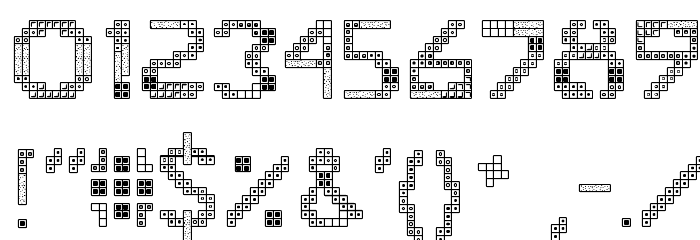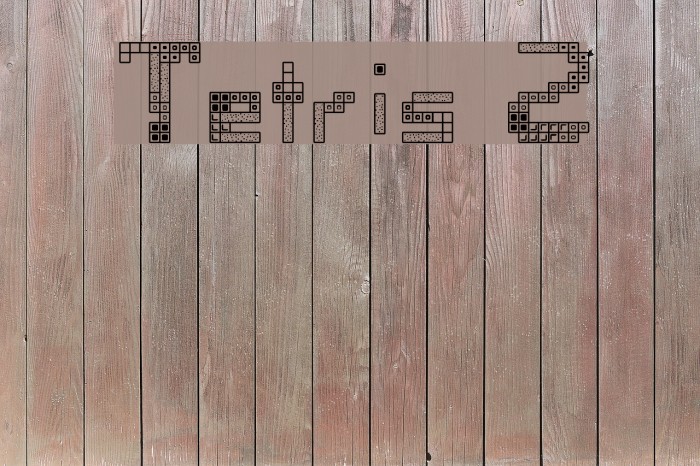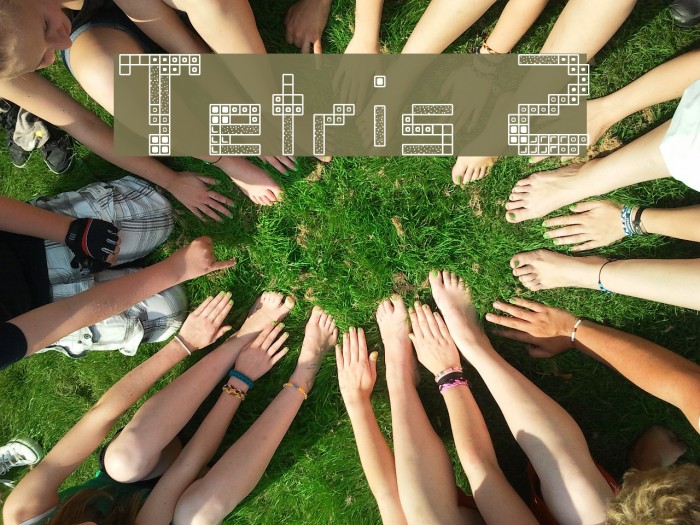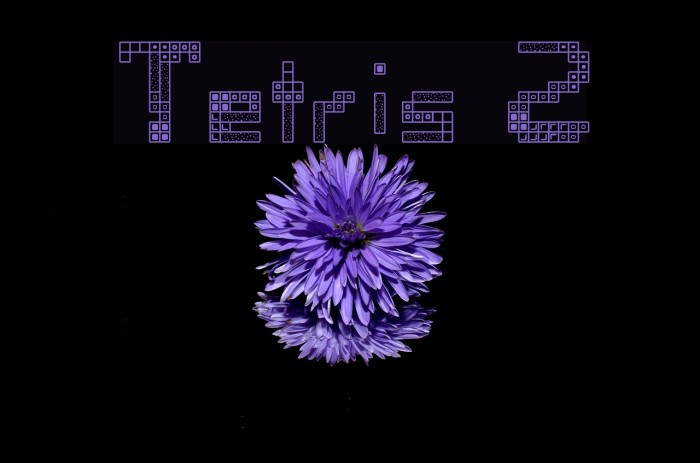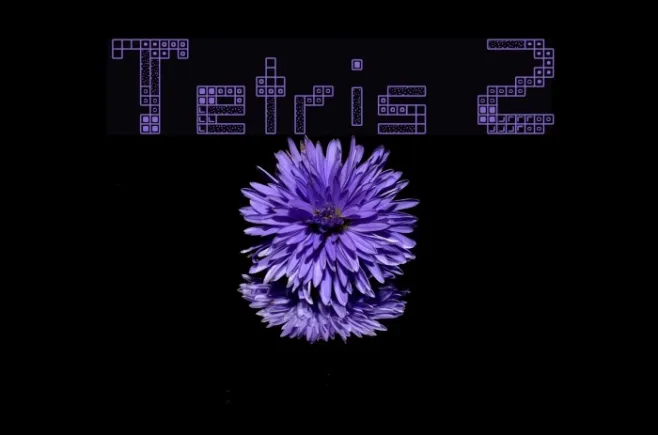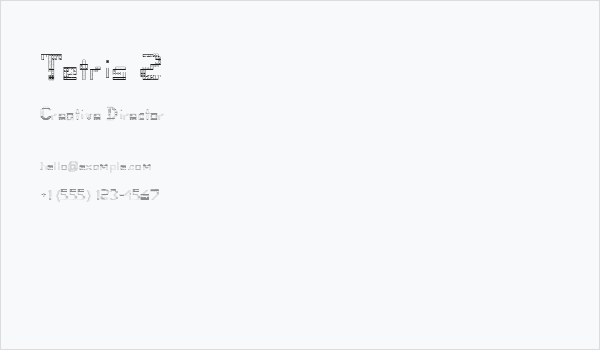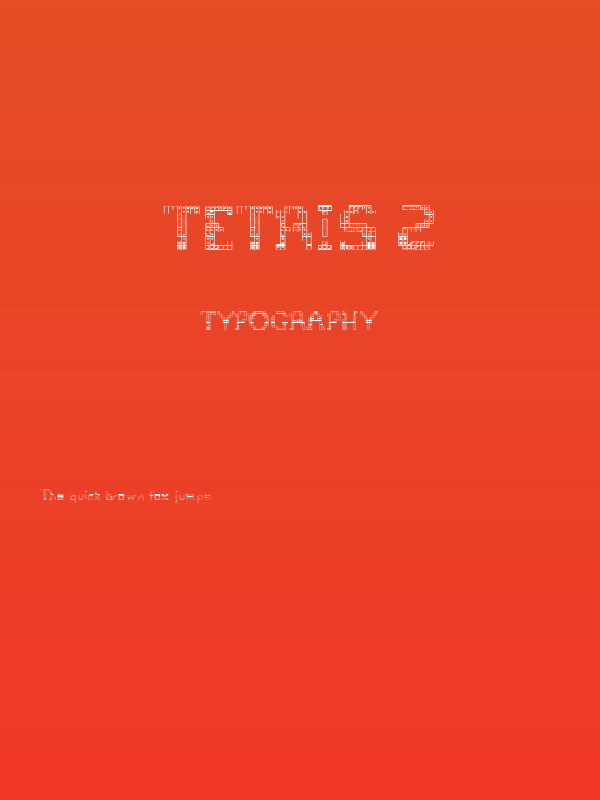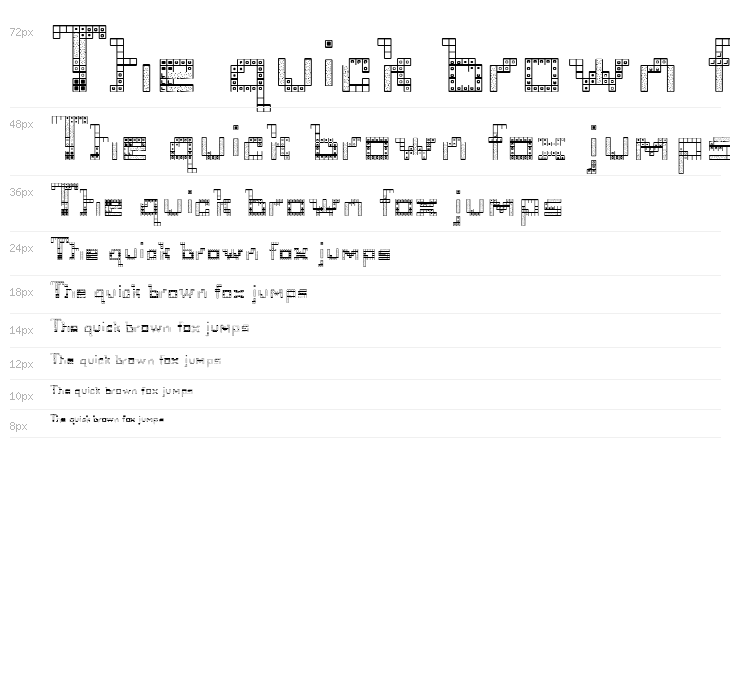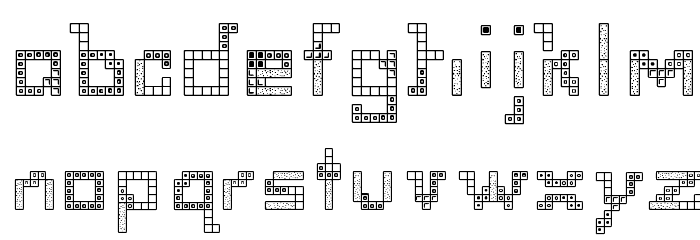
Tetris 2 Font
Tetris 2 Description
This font is a playful and geometric design inspired by classic block-stacking games. Each character is constructed from a series of interconnected squares, creating a pixelated, retro aesthetic. The uppercase and lowercase letters maintain a consistent blocky structure, while numbers and special characters follow the same theme, ensuring uniformity across all glyphs. The font's unique style makes it stand out, offering a nostalgic feel reminiscent of early video game graphics. Its distinctive appearance is ideal for projects that aim to capture a sense of fun and creativity.
| Overall Style | Retro, Playful |
| Proposed Projects | Ideal for video game designs, retro-themed posters, and playful branding projects. |